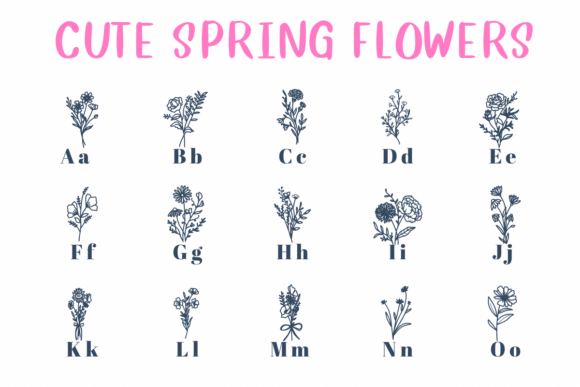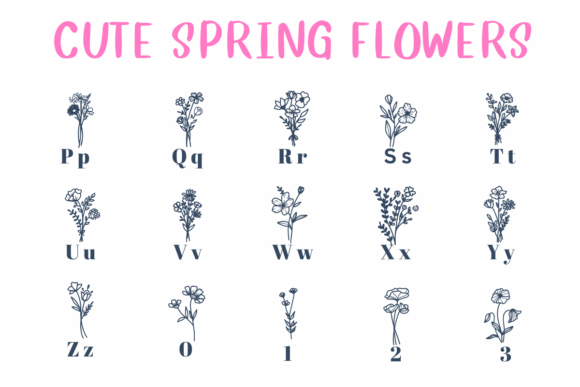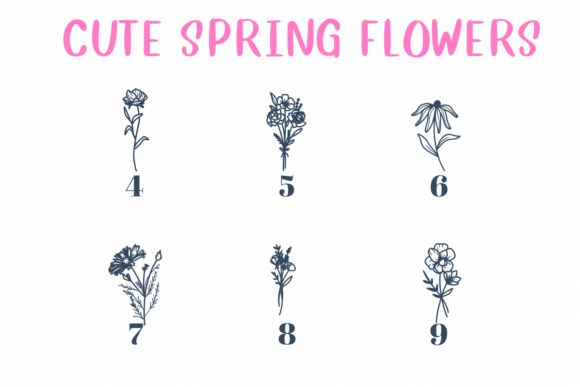
Introduction to Cute Spring Flowers Font
As a designer, there’s nothing quite like the feeling of seeing a project come together with the perfect font. It’s the moment when all the elements align, and your vision starts to take shape. For me, it’s the sound of a freshly downloaded font file, the excitement of exploring its possibilities, and the satisfaction of bringing a design to life. And, let me tell you, the Cute Spring Flowers Font is one that never fails to put a smile on my face.
This charming dingbats font is a design resource like no other, offering a high-quality, floral theme that’s perfect for spring-inspired projects. Whether you’re working on a wedding invitation, a DIY craft, or a logo design, the Cute Spring Flowers Font is sure to add a touch of whimsy and charm. With its transparent background, it’s easy to integrate into your design without overpowering the rest of your elements.
Key Features of Cute Spring Flowers Font
• High-quality design resource ideal for creative projects, such as greeting cards, invitations, and digital art.
• Features a transparent background, allowing for easy customization and versatility in design layouts.
• Includes a variety of spring-themed flowers and foliage, perfect for capturing the essence of the season.
• Designed with a cute and playful style, adding a touch of whimsy to any creative project.
Honest Review: Cute Spring Flowers Font
I recently had the chance to work with the Cute Spring Flowers Font for a creative project and I must say, it was a great experience. The font is a wonderful addition to any design resource, offering a high quality aesthetic that’s perfect for spring-themed designs.
• ✨ High quality design: The Cute Spring Flowers Font is beautifully crafted, with intricate details and a delicate touch.
• ✨ Transparent background: The font’s transparent background makes it easy to overlay on top of other design elements, giving you complete creative control.
• ⚠️ Limited font weights: The Cute Spring Flowers Font only comes in a few font weights, which may not be ideal for designs that require a lot of font variation.
• ⚠️ Not suitable for all design styles: The font’s delicate design may not be suitable for bold or edgy design styles.
Overall, I’m impressed with the Cute Spring Flowers Font. It’s a great choice for designers looking for a high quality, creative font that’s perfect for spring-themed designs. Just be aware of its limitations and use it wisely in your design project.
The Cute Spring Flowers Font is perfect for a variety of design projects, including: event invitations, social media graphics, marketing materials, and educational resources. Its elegant and whimsical design makes it a great choice for spring-themed projects, weddings, and baby showers.